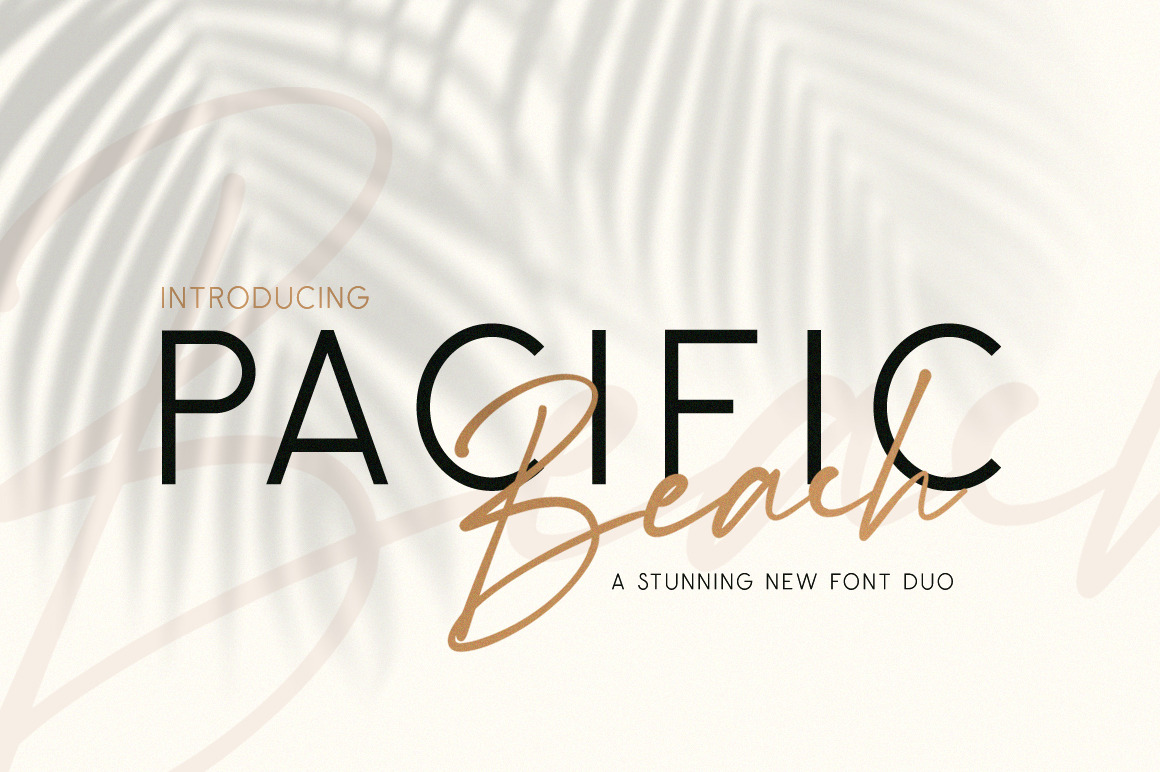
Pacific Beach Font Duo
Pacific Beach is a stylish new font duo that is classy, sassy and a little bit bad-assy! A clean sans that mixes so beautifully with the handwritten script! Use alone or together for a sharp combo. Perfect for logos and branding!